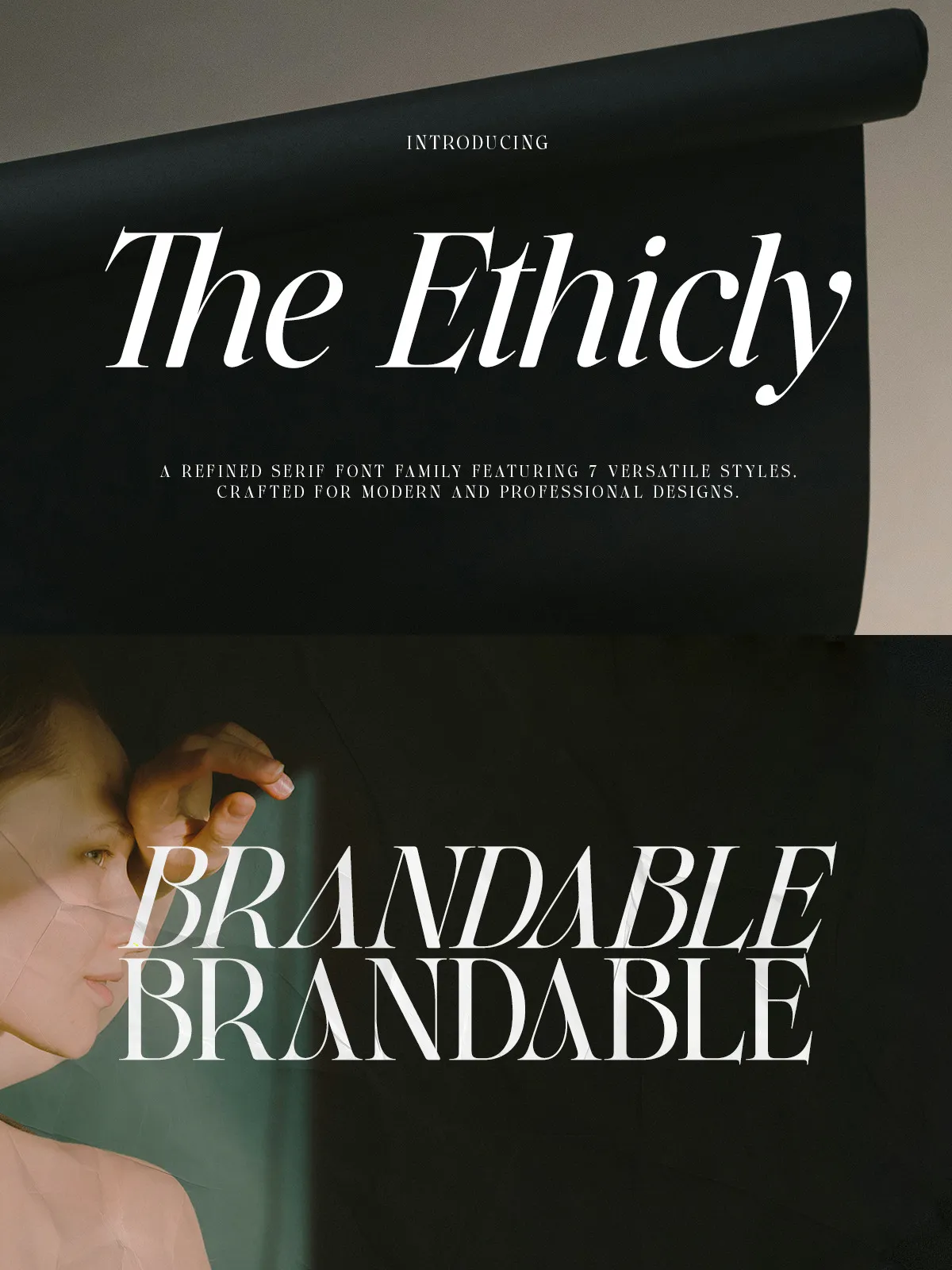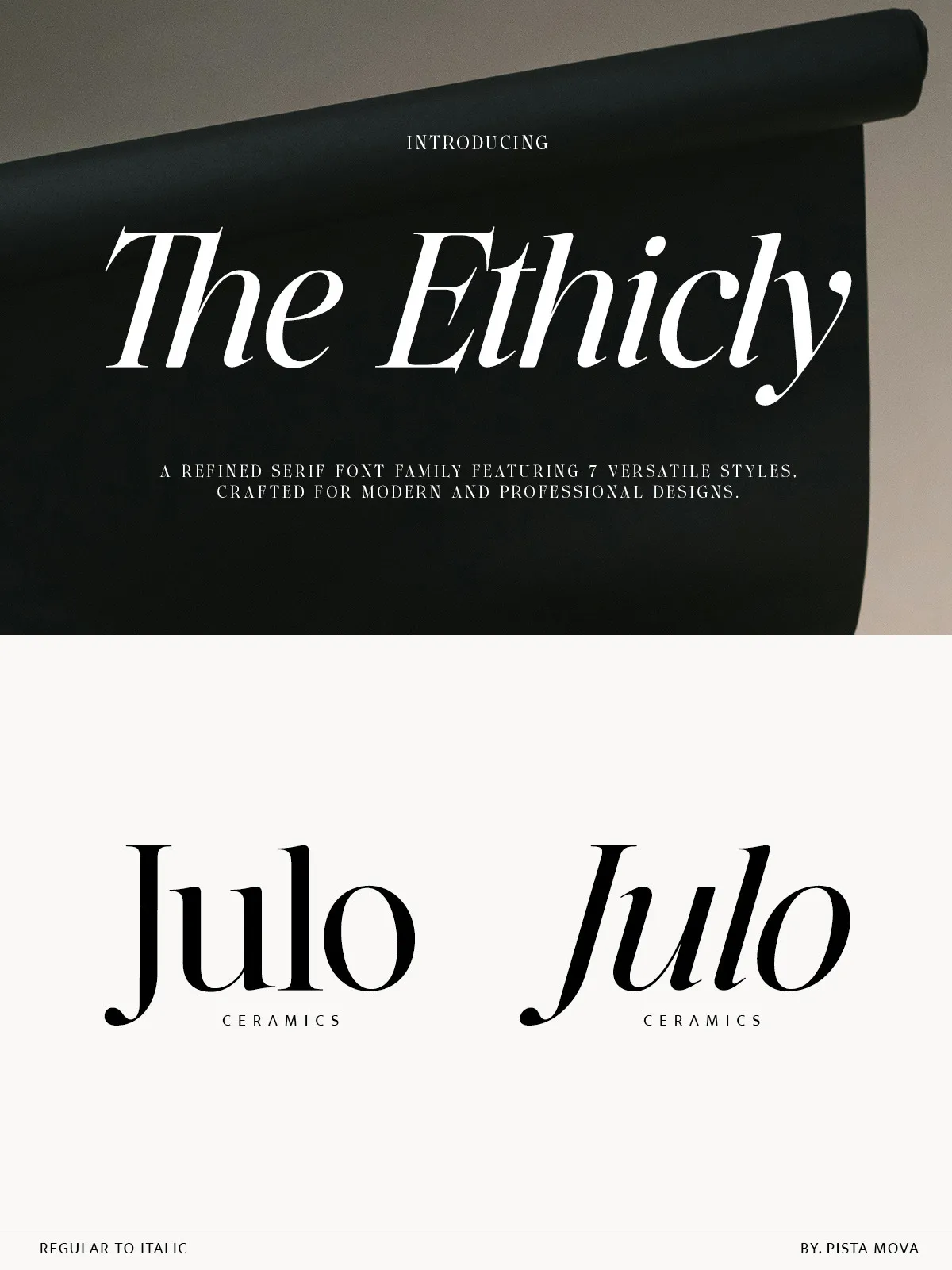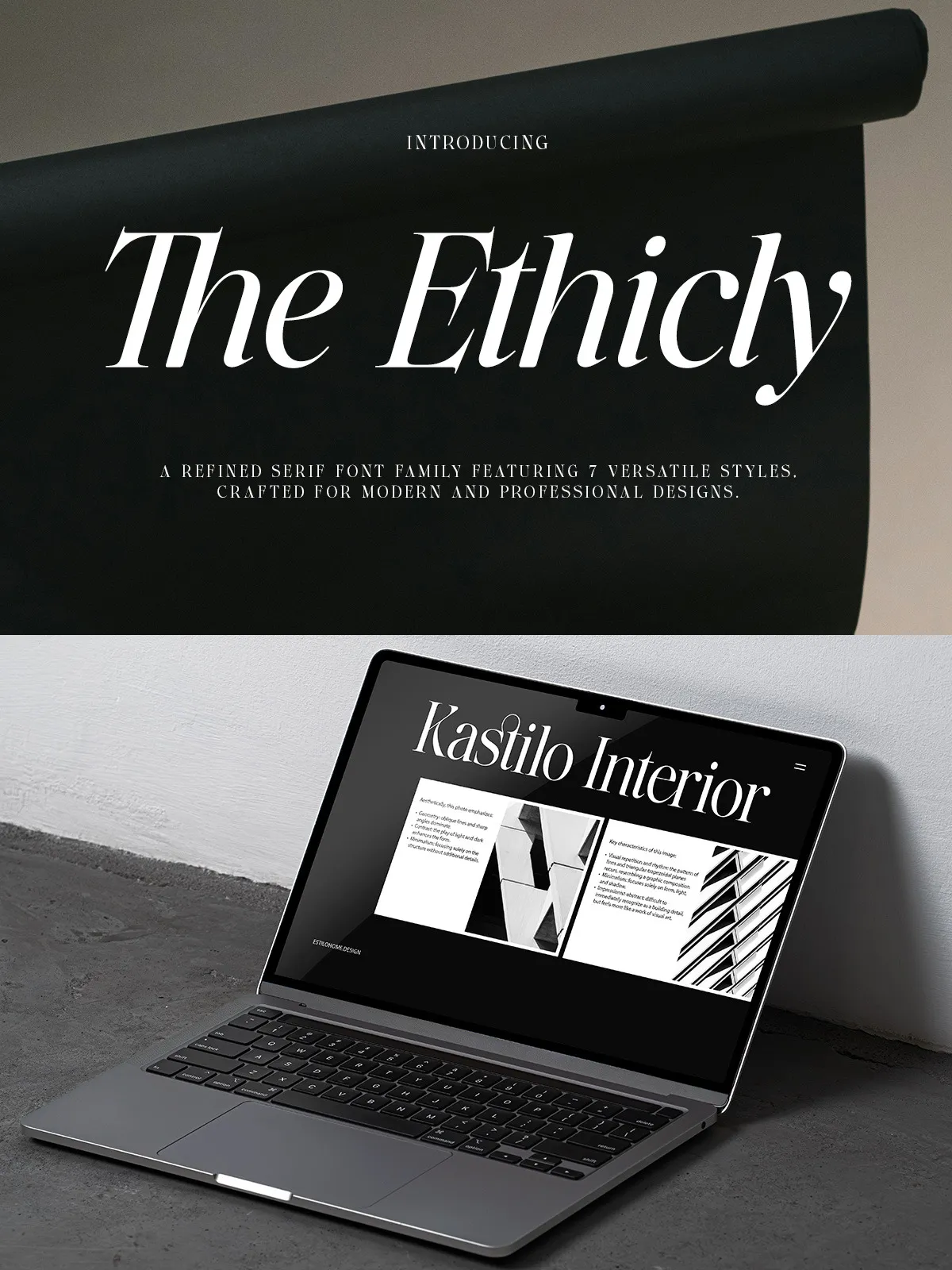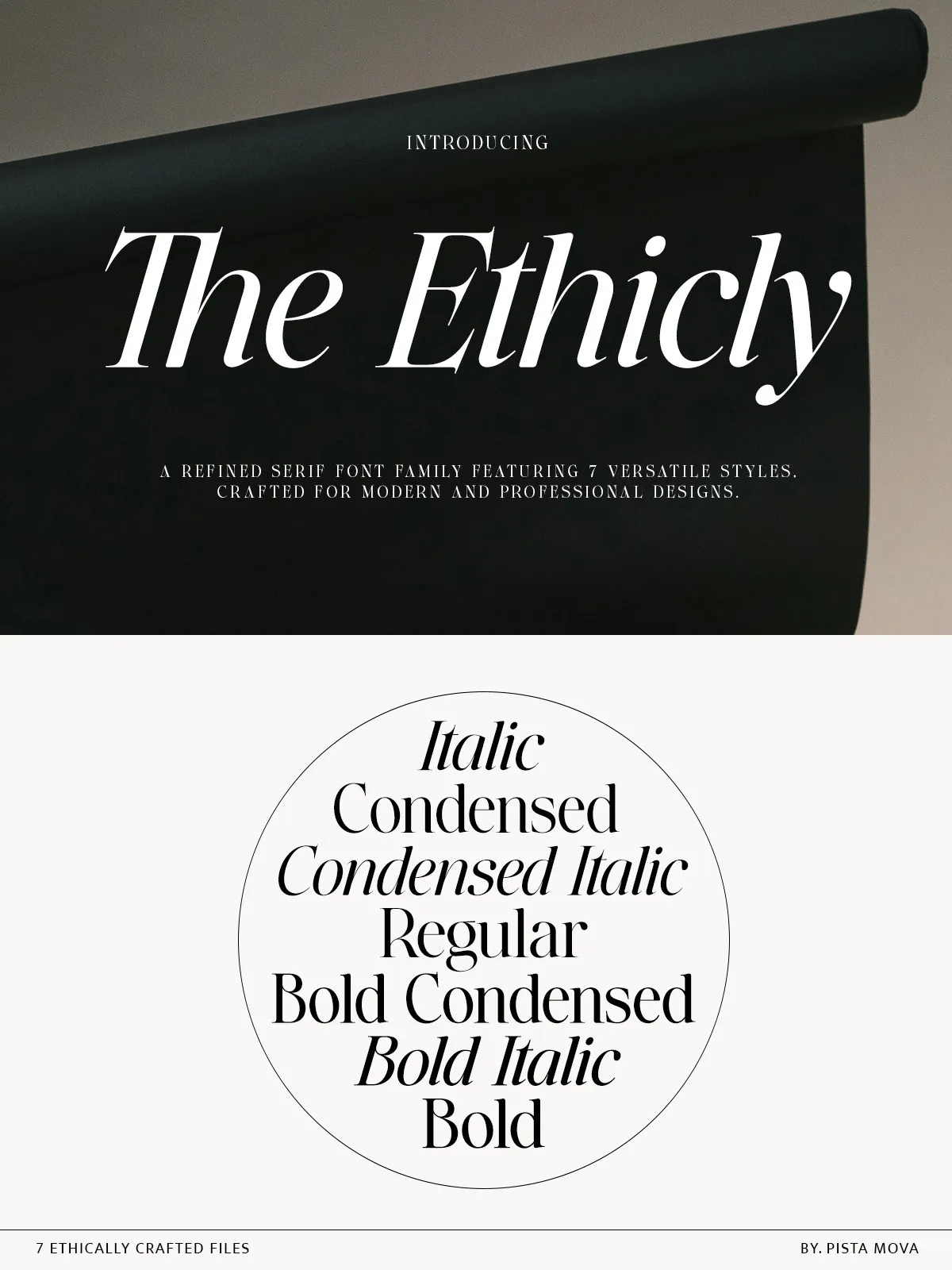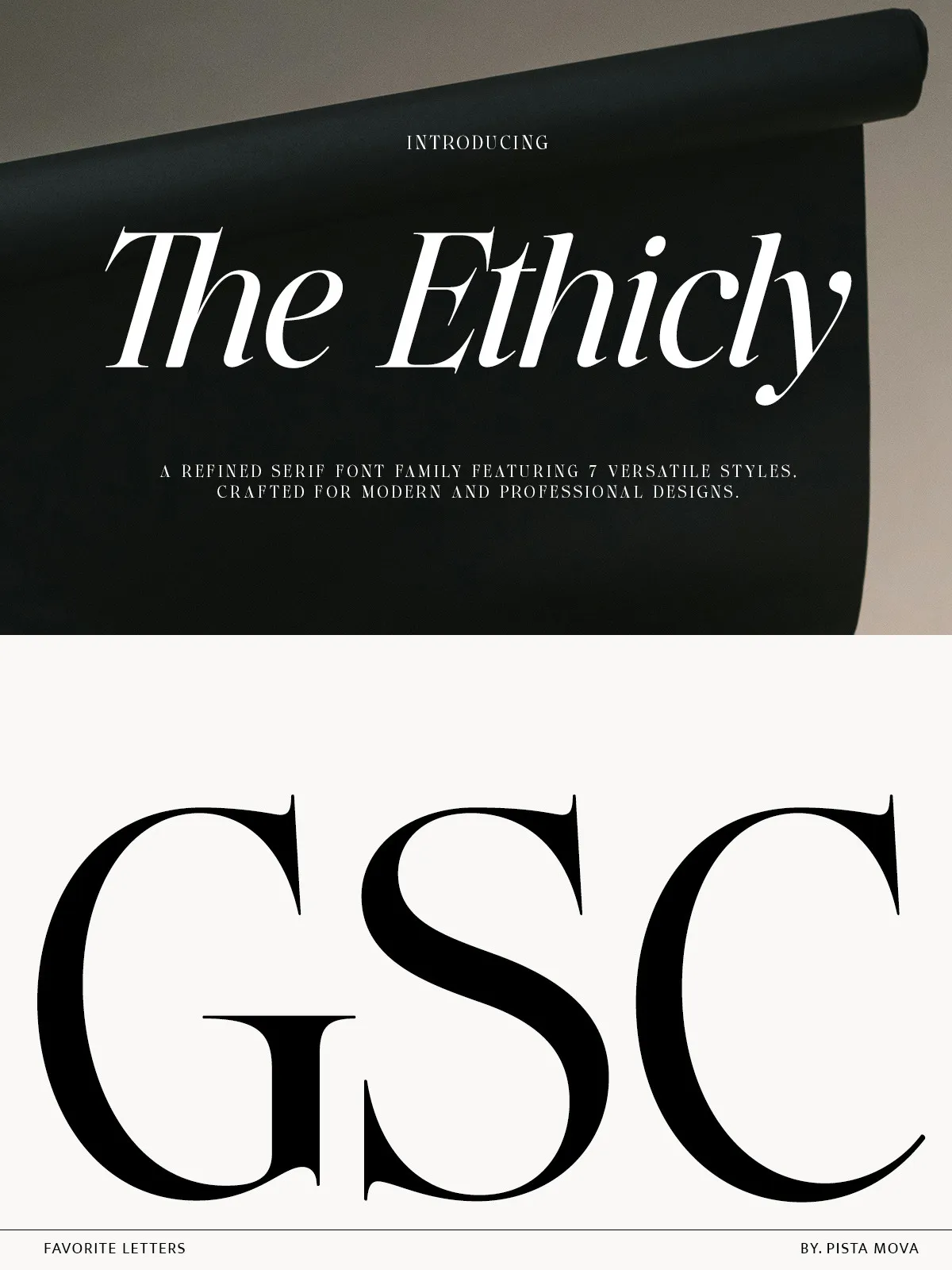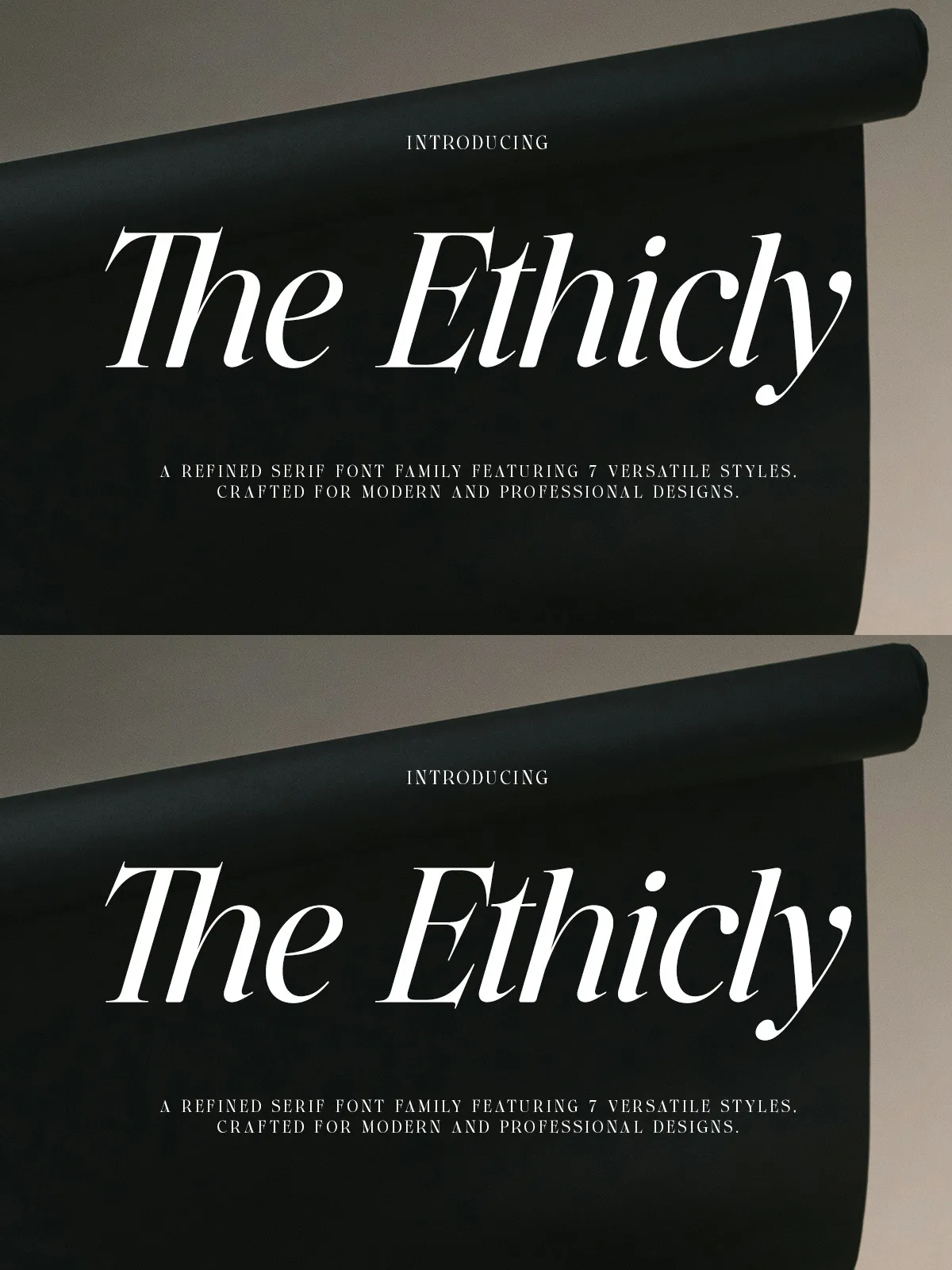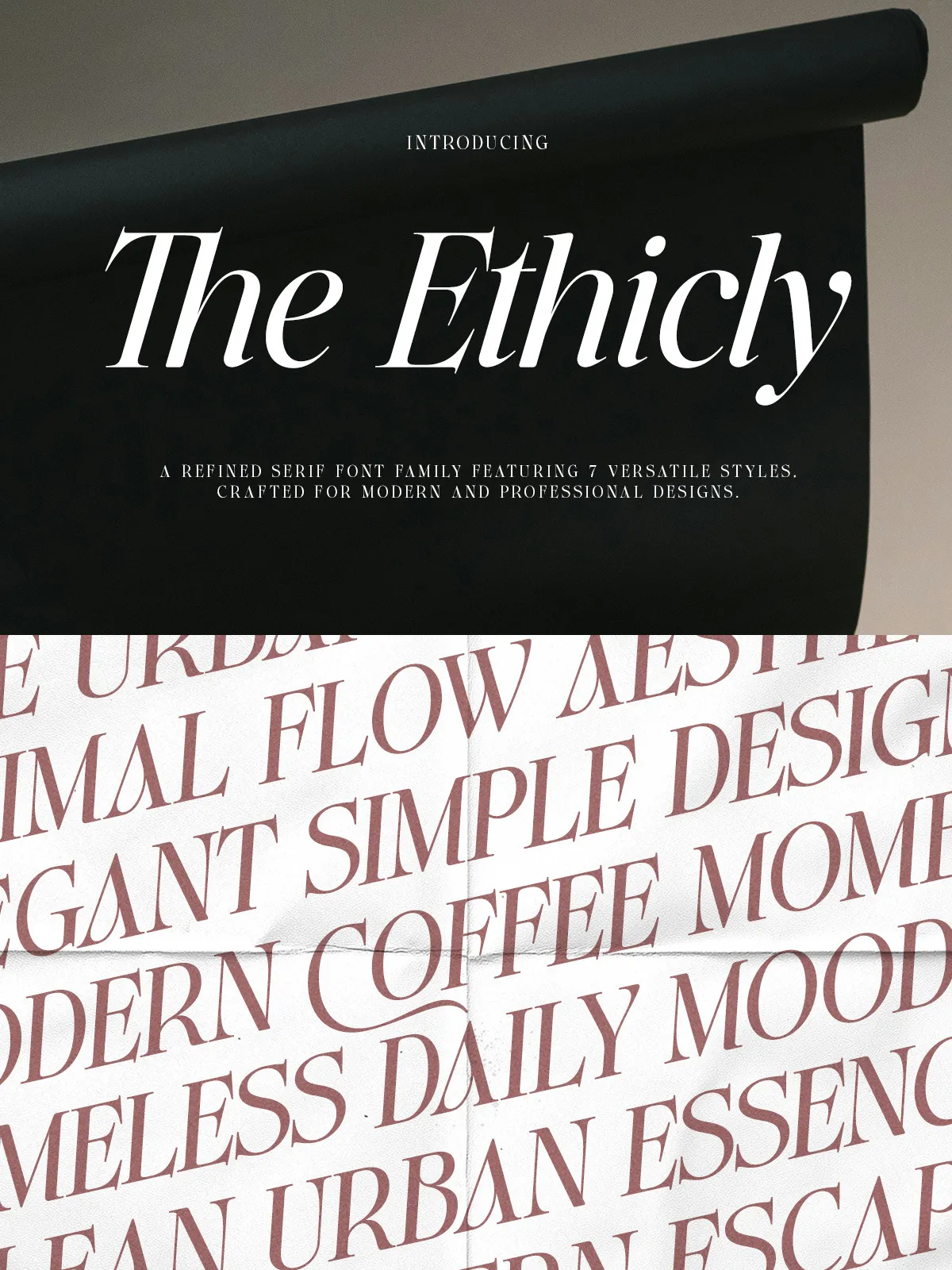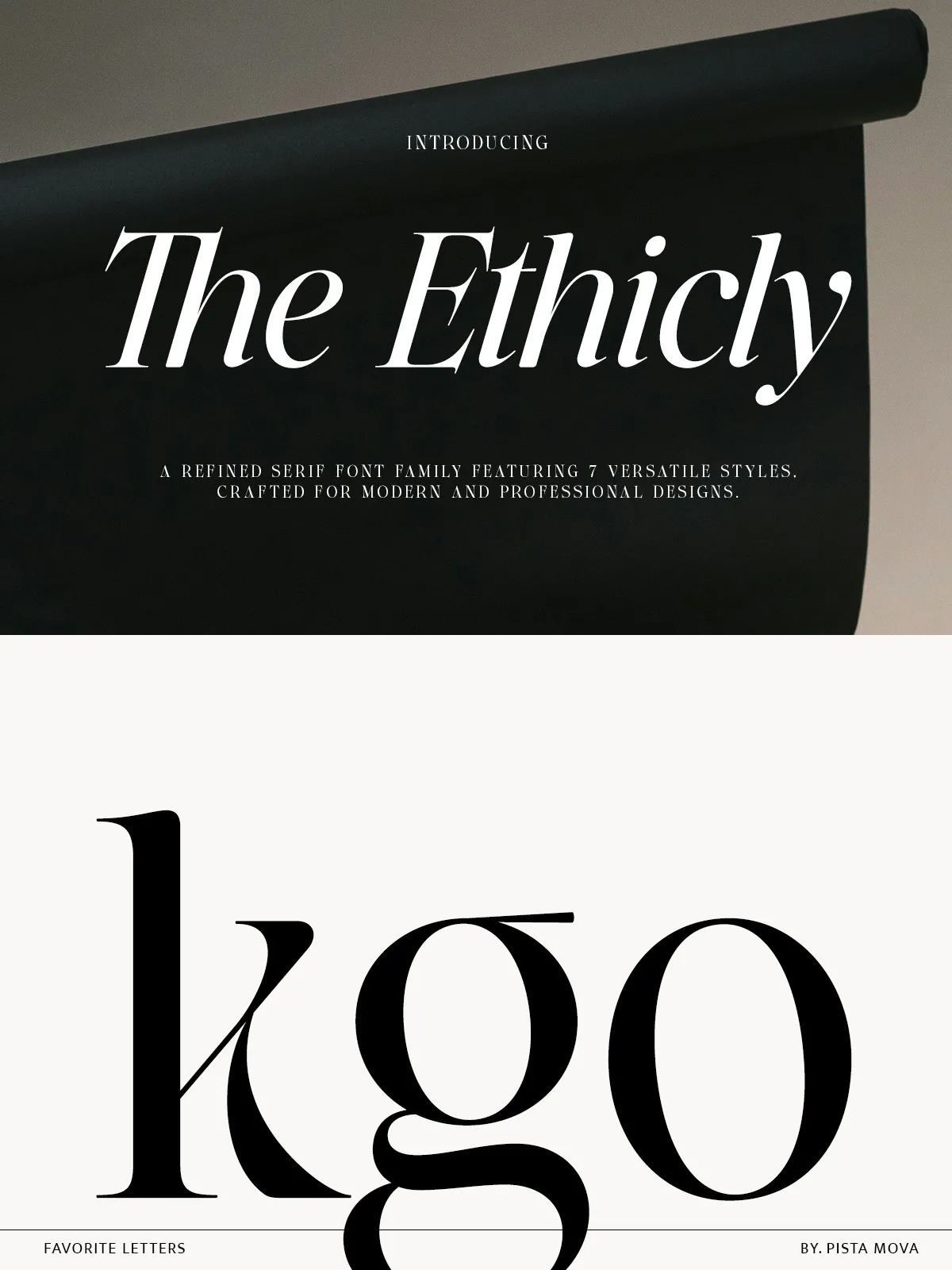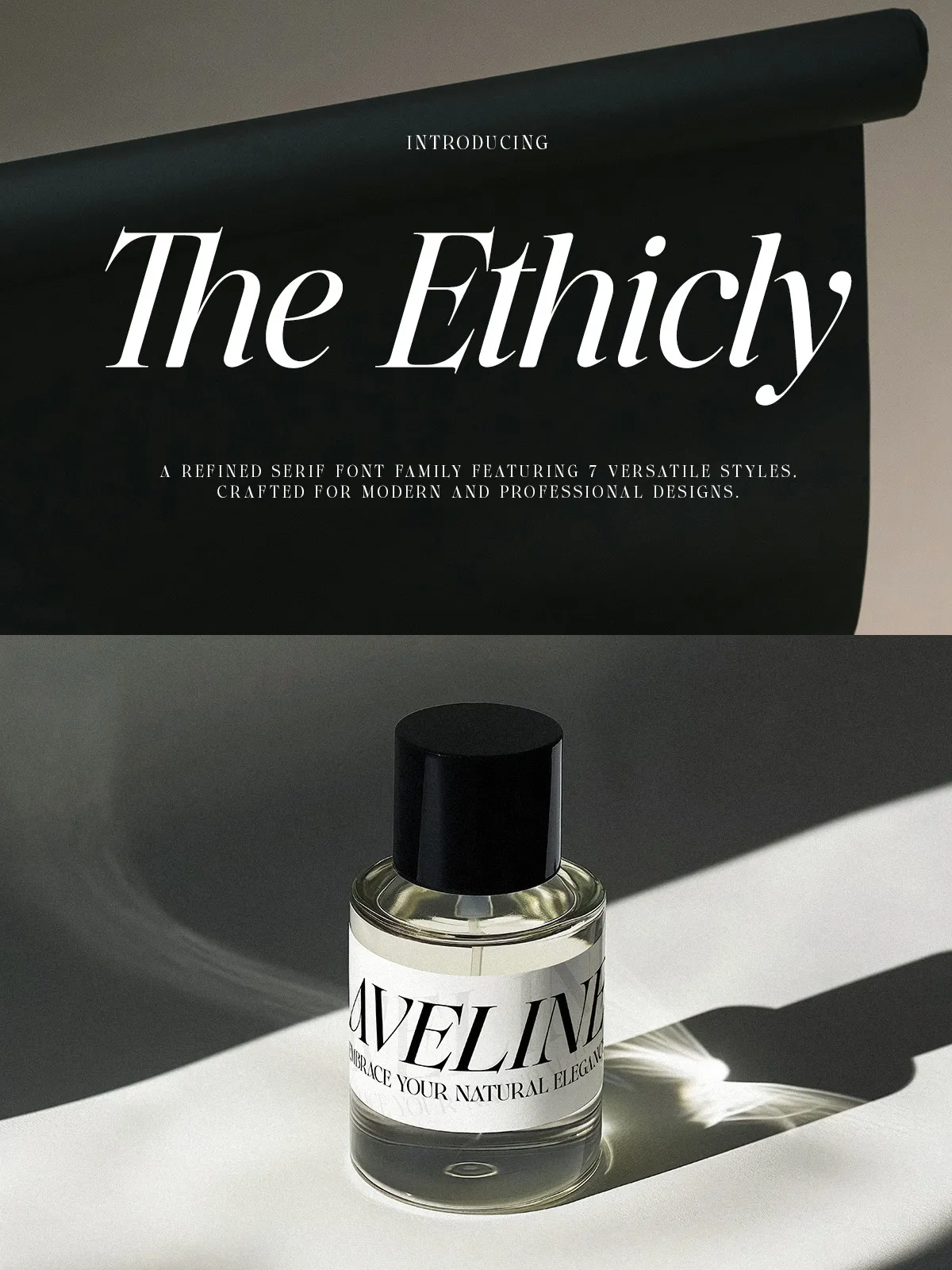
The Ethicly
The Ethicly delivers a sophisticated voice for designers who demand refinement and versatility. Built with high-contrast strokes and graceful curves, this typeface actively enhances brand presence and editorial clarity. Every character in The Ethicly receives careful attention to balance, weight, and legibility so your headlines, body copy, and display text communicate with confidence and style.
Features
High-Contrast Construction
The Ethicly uses pronounced contrast between thick and thin strokes to create a luxurious, refined appearance. This contrast adds visual rhythm and highlights letterform details, making large headlines feel authoritative while preserving legibility at smaller sizes.
True Italics and Fluid Motion
The Ethicly includes true italics that do more than slant characters—they introduce distinctive calligraphic gestures that bring motion and personality. Designers can use italics for emphasis, pull quotes, or brand signatures without losing typographic harmony.
OpenType Richness
Advanced OpenType features unlock ligatures, contextual alternates, and small caps that let you refine typographic color and hierarchy. Use discretionary ligatures for display settings and standard ligatures for clean, consistent text flow.
Global Language Support
The Ethicly supports over 90 languages, enabling confident deployment across international projects. Accented characters and extended Latin glyphs ensure consistent branding in multilingual environments.
Designed For
Luxury Brands & Logos
The Ethicly elevates brand identities. Its refined strokes and clear structure project prestige and trust, making it ideal for luxury goods, high-end hospitality, and boutique services.
Editorial and Print
Use The Ethicly for magazine headlines, book covers, and editorial spreads where sophistication and readability matter. The font’s modulation supports elegant typographic hierarchies and graceful page rhythm.
Web & Digital
The Ethicly renders cleanly on screens and adapts across responsive breakpoints. Pair it with optimized webfont formats and CSS techniques to maintain clarity and presence on every device.
Premium Packaging & Stationery
From product labels to invitations, The Ethicly adds perceived value. Its contrast and form translate well to foil stamping, embossing, and letterpress finishes, enhancing tactile branding applications.
Usage Tips
Hierarchy and Scale
Apply The Ethicly in bold weights for headlines and logos to maximize impact. Reserve lighter weights and italics for subheadings, captions, and pull quotes. Maintain consistent line-height and generous margins to let the type breathe.
Pairing Recommendations
Pair The Ethicly with a neutral sans-serif for body text to preserve readability while allowing The Ethicly to carry display weight. For expressive editorial layouts, contrast The Ethicly with a soft, low-contrast serif to create a layered typographic palette.